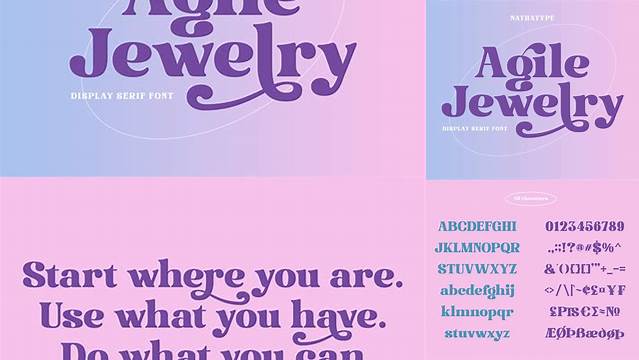
Agile Jewelry Free Font: A Complete Guide
Hey guys! Ever stumbled upon a font that just screams elegance and agility? Well, let’s dive into the world of agile jewelry free fonts. We're going to explore everything about them, from what makes them special to how you can use them in your next big project. Think of this as your ultimate guide to unlocking the potential of these stunning fonts. So, buckle up and let’s get started!
1. Understanding the Basics of Agile Jewelry Fonts
So, what exactly are agile jewelry fonts? These fonts are designed to evoke the same sense of sophistication and precision that you find in fine jewelry. They often feature sleek lines, delicate curves, and a sense of movement, making them perfect for projects that need a touch of class. Agile jewelry fonts aren't just about looking pretty; they're about conveying a message of elegance, quality, and attention to detail. Whether you're designing a logo for a high-end brand or creating invitations for a swanky event, understanding the basics of these fonts is crucial. They bridge the gap between typography and artistry, offering a unique way to express creativity. When you start to really understand these fonts, you'll find yourself seeing design possibilities everywhere. Imagine using one for a wedding invitation – the font itself becomes part of the celebration. Or, picture it gracing the cover of a luxury magazine, instantly signaling sophistication. The beauty of agile jewelry fonts lies in their versatility and their ability to elevate any design they touch.
2. The Characteristics of Agile Design in Fonts
What makes a font “agile”? Well, in the design world, agility refers to the font's ability to adapt and flow, much like a dancer or a gymnast. Fonts with an agile design often have a sense of movement, with strokes that curve and connect in unexpected ways. This agility can be achieved through various techniques, such as varying the thickness of the lines, adding subtle serifs, or incorporating calligraphic elements. The key is to create a font that feels dynamic and alive. This is crucial because agile jewelry fonts aren't just about being visually appealing; they're about conveying a sense of grace and flexibility. Think of it like this: a font that’s too rigid can feel cold and uninviting. But an agile jewelry font? It feels like it’s flowing across the page, drawing the reader in. These fonts often mimic the fluidity found in handwritten scripts or the delicate lines of jewelry design. And when you start to notice these characteristics, you’ll appreciate the craftsmanship that goes into creating them. The next time you see a font that seems to dance on the page, you'll know you're looking at agile design in action.
3. Exploring Free Agile Jewelry Font Options
4. The Appeal of Jewelry-Inspired Typography
Why jewelry? What’s the connection between shiny gems and letters on a page? Well, jewelry-inspired typography aims to capture the same sense of luxury, craftsmanship, and attention to detail that you find in a beautifully crafted piece of jewelry. Think about it: both jewelry and fonts can be intricate, delicate, and eye-catching. They both communicate a certain message or feeling. Jewelry-inspired fonts often feature thin lines, elegant curves, and a sense of sparkle, almost as if they were made of precious metals and gemstones. This connection isn't accidental. Designers often draw inspiration from the shapes, textures, and overall aesthetic of jewelry when creating these fonts. For instance, a font might mimic the flowing lines of a necklace or the sharp angles of a diamond. This results in typography that feels not just visually appealing, but also rich with meaning and emotion. The allure of jewelry-inspired typography lies in its ability to transform the mundane into the magnificent, turning words into wearable art.
5. How to Use Agile Jewelry Fonts in Branding
Branding is all about making a statement, and the right font can speak volumes. Agile jewelry fonts are fantastic for brands that want to project an image of elegance, sophistication, and exclusivity. Think luxury boutiques, high-end spas, or bespoke jewelry designers. These fonts can add a touch of class to logos, websites, and marketing materials, instantly elevating your brand’s image. But it's not just about aesthetics; it's about conveying the right message. An agile jewelry font can communicate that your brand is refined, detail-oriented, and committed to quality. When using these fonts in branding, consider the overall tone and style you want to convey. A delicate script font might be perfect for a wedding planner, while a bolder, more angular font could work well for a contemporary jewelry brand. The key is to choose a font that aligns with your brand’s personality and values. And don’t forget consistency! Using the same font across all your branding materials will create a cohesive and professional look. So, when it comes to branding, agile jewelry fonts can be your secret weapon for creating a lasting impression.
6. Designing Logos with Agile Free Fonts
Creating a logo? This is where the magic happens! A logo is the face of your brand, and the font you choose plays a massive role in shaping that identity. When you're designing logos, agile free fonts can be your best friends, bringing that touch of class and sophistication without costing a dime. The beauty of using an agile font in a logo is its versatility. It can be adapted to suit a range of styles, from minimalist and modern to ornate and traditional. When selecting an agile free font, think about the message you want your logo to convey. A flowing script font might be perfect for a beauty brand, while a geometric sans-serif could work wonders for a tech company looking to exude elegance. To create a memorable logo using agile free fonts, consider the overall aesthetic and how the font complements other design elements. Play around with different sizes, weights, and spacing to achieve the perfect balance. Remember, the goal is to create a logo that is not only visually appealing but also instantly recognizable and representative of your brand.
7. Website Design and Agile Jewelry Font Integration
Your website is your online storefront, and just like a physical store, the design needs to be inviting and reflect your brand’s personality. Incorporating agile jewelry fonts into your website design can instantly elevate the user experience, adding a touch of sophistication and elegance. But how do you do it effectively? The key is to use these fonts strategically. While they're stunning for headings, logos, and key phrases, you might want to avoid using them for large blocks of body text. An agile jewelry font, while beautiful, can sometimes be harder to read in large quantities. Instead, pair it with a cleaner, more legible font for your main content. Think of it as a conversation: your headings and key phrases make a statement in agile jewelry fonts, and your body text fills in the details in a clear, readable style. When integrating these fonts into your website, consider the overall aesthetic. Does your site have a minimalist design? An ornate script font could provide a striking contrast. Is it more traditional? A classic serif font with agile elements might be the perfect fit. Website design and agile jewelry font integration is all about balance and creating a cohesive visual experience.
8. Typography Pairings: Complementing Agile Styles
So, you’ve found the perfect agile jewelry font. Now what? The next step is to pair it with another font that complements its style. Typography pairings are crucial for creating a balanced and visually appealing design. Think of it as a harmonious duo: one font takes the lead, while the other provides support and contrast. When pairing an agile font, consider its personality. Is it delicate and flowing, or bold and geometric? A delicate script font might pair well with a clean sans-serif, while a bold agile font could benefit from a more understated serif. The goal is to create a visual hierarchy, where the agile jewelry font catches the eye and the supporting font provides clarity and readability. Experiment with different combinations to find what works best for your project. Websites like FontPair and Typewolf can be great resources for inspiration and guidance. The art of typography pairings is about creating a visual dialogue, and when you get it right, it can transform your design from good to wow.
9. Using Free Fonts for Invitations and Cards
Planning a special event? Whether it’s a wedding, a birthday, or a fancy gala, the right font can make your invitations and cards stand out. Free agile jewelry fonts are a fantastic choice for adding a touch of elegance and sophistication to your stationery. Imagine a delicate script font gracing a wedding invitation or a bold, geometric font making a statement on a party announcement. The possibilities are endless! When using free fonts for invitations and cards, think about the tone and style of the event. A formal occasion might call for a classic serif or script font, while a more casual gathering could benefit from a modern sans-serif with agile elements. Consider your audience, too. What fonts will resonate with them and create the desired impression? When designing invitations and cards with free agile jewelry fonts, pay attention to the details. The spacing between letters and lines, the size of the font, and the overall layout can all impact the final result. Remember, the goal is to create a design that is not only visually appealing but also easy to read. The right font can transform a simple invitation into a keepsake, and agile jewelry fonts offer the perfect blend of style and sophistication.
10. Agile Fonts in Digital Marketing Campaigns
In the fast-paced world of digital marketing, grabbing attention is key. Using agile fonts in your campaigns can help your visuals stand out and convey the right message to your audience. These fonts, with their elegant and dynamic designs, can add a touch of sophistication and professionalism to your marketing materials. Think about your target audience and the kind of message you want to send. An agile jewelry font can be particularly effective for luxury brands, fashion retailers, and companies in the beauty or lifestyle industries. However, agility isn’t just about aesthetics; it’s also about readability and adaptability. When incorporating agile fonts into digital marketing, ensure that the font is clear and legible across various devices and platforms. Pair your agile font with a complementary font for body text to maintain readability without sacrificing style. Always test your designs on different screens and consider the overall visual appeal to ensure that your message resonates with your audience.
11. The Impact of Font Choice on Readability
Readability, guys, this is super important. No matter how beautiful a font is, if your audience can't read it easily, it's not doing its job. The impact of font choice on readability cannot be overstated. While agile jewelry fonts can add a touch of elegance to your designs, it’s crucial to balance style with functionality. Factors like font size, spacing, and contrast play a significant role in how easily your text can be read. A font that looks stunning in a headline might become a headache in body text. When choosing fonts, think about the context in which they’ll be used. For instance, a clean sans-serif font is often the best choice for web content because it’s easy to read on screens. In contrast, a script or decorative agile jewelry font might be better suited for shorter text elements like headings or quotes. To ensure readability, pay attention to the kerning (the space between letters) and the leading (the space between lines). Adequate spacing can prevent your text from feeling cramped and make it easier for the eye to follow. Remember, readability is about respecting your audience’s time and attention. By choosing fonts that are both visually appealing and easy to read, you can create designs that are not only beautiful but also effective.
12. Licensing Considerations for Free Fonts
So, you've found the perfect agile free font? Awesome! But before you start using it everywhere, let’s talk about licensing. Understanding licensing considerations for free fonts is crucial to avoid any legal hiccups down the road. Just because a font is free doesn't mean it's free for any use. Most free agile fonts come with specific terms and conditions that outline what you can and cannot do with them. There are generally two main types of licenses: personal use and commercial use. Personal use licenses typically allow you to use the font for non-profit projects, such as school assignments or personal invitations. Commercial use licenses, on the other hand, allow you to use the font in projects that generate revenue, such as logos, websites, and marketing materials. However, even commercial use licenses can have restrictions. Some may require you to credit the font designer, while others may prohibit you from modifying the font or embedding it in certain types of software. Before incorporating a free agile font into your project, always check the license agreement. Look for a file called “License.txt” or “ReadMe.txt” in the font download, or visit the font designer’s website for more information. Ignoring licensing terms can lead to legal issues, so it’s always better to be safe than sorry.
13. Font Weight and Its Role in Agile Aesthetics
Font weight is a game-changer in typography! It’s not just about making text bolder or lighter; it's about adding depth, hierarchy, and visual interest to your designs. And when it comes to agile aesthetics, font weight plays a starring role. Think of font weight as the personality of your typeface. A light weight can convey elegance and delicacy, while a bold weight can project strength and confidence. In the context of agile jewelry fonts, font weight can enhance the sense of agility and fluidity. For instance, a thin, lightweight font might mimic the delicate lines of a piece of fine jewelry, while a slightly bolder weight can add emphasis and presence. When working with agile fonts, experiment with different weights to see how they impact the overall design. Consider using a lighter weight for headings to create a sophisticated and airy feel, and a slightly heavier weight for body text to ensure readability. Font weight also plays a crucial role in visual hierarchy. By using different weights, you can guide the reader’s eye and highlight the most important information. So, don't underestimate the power of font weight – it's a key ingredient in achieving a polished and agile aesthetic.
14. Kerning and Leading for Agile Free Fonts
Okay, let’s dive into some typography nitty-gritty: kerning and leading! These might sound like super technical terms, but trust me, they're essential for making your text look amazing, especially when you're working with agile free fonts. Kerning is the adjustment of the space between individual letters, while leading (pronounced “ledding”) is the vertical space between lines of text. Both kerning and leading have a huge impact on readability and visual appeal. Imagine a beautifully designed agile free font with wonky kerning – some letters are squished together, while others are miles apart. It's distracting, right? Proper kerning ensures that the letters flow smoothly and evenly, creating a harmonious visual rhythm. Leading is equally important. If the lines of text are too close together, the text can feel cramped and difficult to read. If they're too far apart, the text can look disjointed. The right leading gives your text room to breathe and enhances readability. When working with agile free fonts, pay close attention to kerning and leading. Many fonts have built-in kerning pairs, but you may need to make manual adjustments to achieve the perfect balance. Experiment with different leading values to find what works best for your specific font and layout. Mastering kerning and leading is like adding the final polish to a piece of jewelry – it's what makes your typography truly shine.
15. Color Psychology and Font Choice Synergy
Color psychology is a fascinating field, and it plays a big role in design. But did you know that color and font choices work together to create a certain mood or message? This is especially true when you're using something as specific as agile jewelry free fonts. Think about it: Colors evoke emotions and associations, and fonts do the same. When you combine them strategically, you can create a powerful synergy that enhances your design. For example, a delicate script font paired with soft pastel colors might evoke feelings of romance and elegance, making it perfect for wedding invitations. On the other hand, a bold, geometric font combined with vibrant, energetic colors might convey a sense of modernity and excitement, making it suitable for a tech startup’s branding. When thinking about color psychology and font choice synergy, consider your target audience and the message you want to convey. What emotions do you want to evoke? What associations do you want to create? The key is to choose colors and fonts that complement each other and work together to tell a cohesive story. This is where agile jewelry free fonts really shine; their inherent elegance can be amplified or contrasted with the right color palette to create a truly impactful design.
16. Best Practices for Using Fonts in Print Materials
Print materials have their own unique set of considerations when it comes to font usage. While digital design allows for flexibility, print requires attention to detail to ensure your fonts look their best on paper. When using fonts in print, especially elegant ones like agile jewelry free fonts, certain best practices can make a huge difference. One of the primary considerations is resolution. Print materials typically require a higher resolution than digital designs to ensure sharpness and clarity. This means choosing fonts that are well-designed and hold up at high resolutions. Avoid fonts that appear pixelated or blurry when printed. Another important factor is color. When selecting colors for your text, consider how they will appear on paper. Some colors may look different on screen than they do in print, so it's always a good idea to do a test print before finalizing your design. Font size is also critical in print. Text that looks legible on a screen might appear too small when printed, so be sure to choose a font size that is appropriate for your audience. Remember, legibility is key. Even the most beautiful agile jewelry free font won't be effective if it's difficult to read. Following these best practices will ensure your print materials look professional and polished.
17. How to Download and Install Free Fonts
Ready to get your hands on some awesome free fonts? Great! Downloading and installing fonts is a pretty straightforward process, but there are a few steps you'll want to follow to make sure everything goes smoothly. First, you'll need to find a reputable website to download your agile jewelry free font. Websites like Google Fonts, Font Squirrel, and DaFont are excellent resources. Once you've found the font you want, click the download button. The font will typically download as a ZIP file. After the download is complete, locate the ZIP file in your downloads folder and extract its contents. Inside the extracted folder, you'll find the font files, which usually have a .ttf (TrueType Font) or .otf (OpenType Font) extension. To install the font on Windows, right-click the font file and select “Install.” On macOS, double-click the font file and click the “Install Font” button in the Font Book application. That’s it! The font is now installed on your system and should be available for use in your design software. If you’re still having trouble seeing your newly installed agile jewelry free font in your design applications, try restarting the program. It’s a simple fix that often resolves the issue. Happy designing!
18. Common Mistakes to Avoid When Using Agile Fonts
Okay, let’s talk about some potential pitfalls. Agile fonts can be stunning, but they also come with their own set of challenges. Knowing the common mistakes to avoid when using agile fonts can save you from design disasters and ensure your projects shine. One of the biggest mistakes is overuse. Agile jewelry free fonts, with their elegant and often intricate designs, are best used sparingly. A headline or a logo? Perfect. Large blocks of body text? Not so much. Using an agile font for everything can overwhelm the reader and detract from readability. Another common mistake is poor pairing. An agile font paired with a similar style can create a visual clash. It’s often best to pair an agile font with a simpler, more neutral font to create contrast and balance. Also, be mindful of size and spacing. An agile jewelry free font might look beautiful in large sizes, but it can become illegible when scaled down. Always test your font choices in different sizes and ensure there's adequate spacing between letters and lines. Finally, don't forget about licensing. Using a font without the proper license can lead to legal trouble. Always double-check the terms of use before incorporating a free agile font into your commercial projects. Avoiding these common mistakes will help you harness the beauty of agile fonts effectively.
19. The Future Trends in Jewelry-Inspired Typography
The world of typography is always evolving, and jewelry-inspired fonts are no exception. Looking at the future trends in jewelry-inspired typography can give you a glimpse into what’s coming next in the design world. One exciting trend is the fusion of traditional and modern styles. We're seeing designers blending classic script fonts with contemporary sans-serifs, creating unique and versatile typefaces. This trend allows for a fresh take on elegance, combining the timeless appeal of traditional fonts with the clean lines of modern design. Another trend is the exploration of textures and finishes. Think fonts that mimic the shimmer of gemstones or the intricate details of metalwork. These textured fonts add depth and visual interest, creating a tactile experience for the viewer. We're also seeing a rise in variable fonts, which allow for greater flexibility and customization. Variable fonts enable designers to adjust font weights, widths, and other parameters, creating a truly bespoke look. In the future, agile jewelry free fonts are likely to become even more dynamic and expressive, pushing the boundaries of what’s possible in typography. Staying on top of these trends will help you create designs that are both current and captivating.
20. Creating a Mood Board for Font Selection
Okay, let's talk mood boards! If you're not using them yet, you're missing out. Creating a mood board for font selection is a fantastic way to get your creative juices flowing and ensure your font choices align with your overall design vision, especially when working with something as specific as agile jewelry free fonts. A mood board is essentially a visual collage of images, colors, textures, and typography that captures the essence of your project's aesthetic. It's a powerful tool for brainstorming and clarifying your design direction. When creating a mood board for font selection, start by gathering images that evoke the mood and style you want to achieve. If you're designing for a luxury brand, you might include images of high-end jewelry, elegant interiors, and sophisticated color palettes. Once you have a collection of inspiring visuals, start experimenting with different fonts. Try pairing various agile jewelry free fonts with complementary typefaces to see how they fit within your mood board's aesthetic. Pay attention to the overall feeling conveyed by each font combination. Does it feel harmonious? Does it capture the essence of your project? Creating a mood board is a great way to visualize your design and make informed font choices. It’s a must have before diving deep into agile jewelry free fonts for your project.
21. Case Studies: Successful Uses of Agile Fonts
Sometimes the best way to learn is by looking at examples. Case studies of successful uses of agile fonts can provide inspiration and insights into how these fonts can be effectively incorporated into various design projects. Think about some brands that exude elegance and sophistication. Many luxury fashion houses, high-end jewelry brands, and boutique hotels use agile fonts in their logos, websites, and marketing materials. By examining these examples, you can see how agile fonts contribute to their overall brand identity. For instance, a delicate script font might be used to convey a sense of romance and craftsmanship, while a bold geometric font could project a more modern and confident image. Look at the font pairings, color palettes, and overall design aesthetic in these case studies. What elements work well together? What creates a cohesive and impactful visual experience? Analyzing successful uses of agile fonts can help you develop your own design skills and make informed choices in your projects. It’s like having a cheat sheet for elegance!
22. The Psychology Behind Choosing the Right Font
Did you know that font choices can tap into our emotions and perceptions? It’s true! Understanding the psychology behind choosing the right font is essential for effective design, particularly when aiming for a specific mood with agile jewelry free fonts. Different fonts evoke different feelings. Serif fonts often convey tradition, authority, and trustworthiness, while sans-serif fonts tend to project modernity, clarity, and simplicity. Script fonts can evoke elegance, creativity, and intimacy, while display fonts can capture attention with their unique and often quirky designs. When selecting a font, consider the message you want to send and the emotional response you want to elicit. For instance, an agile jewelry free font with delicate, flowing lines might be perfect for a wedding invitation, as it evokes feelings of romance and grace. A bolder, more geometric agile font could be ideal for a luxury brand logo, projecting confidence and sophistication. By understanding the psychology of fonts, you can make strategic choices that resonate with your audience and enhance your design’s impact.
23. Agile Fonts for Social Media Graphics
Social media is all about visuals, and your font choices can make or break your graphics. Using agile fonts for social media graphics can add a touch of elegance and sophistication to your posts, helping them stand out in a crowded feed. But how do you use these fonts effectively in the fast-paced world of social media? First, consider your brand identity. What kind of message do you want to convey on social media? An agile jewelry free font can be perfect for brands that want to project a sense of luxury, style, or creativity. Use these fonts sparingly, guys! A headline or a call to action in an agile font can grab attention, but too much of it can overwhelm your followers. Pair your agile jewelry free font with a more readable font for body text to ensure clarity. Remember, social media graphics need to be legible on small screens, so choose font sizes and weights that are easy to read. Color and contrast are also crucial. Make sure your text stands out against the background by using contrasting colors. With the right font choices, your social media graphics can be both beautiful and effective.
24. Combining Agile Fonts with Different Design Styles
The beauty of agile fonts lies in their versatility. They can work wonders when combined with a variety of design styles, from minimalist to maximalist and everything in between. The key is to understand how to create a harmonious balance between the font and the overall design aesthetic. In a minimalist design, an agile jewelry free font can add a touch of elegance without cluttering the space. A delicate script font paired with clean lines and plenty of white space can create a sophisticated and understated look. In a more maximalist design, an agile font can provide a focal point amidst a rich tapestry of colors, patterns, and textures. A bold, geometric agile font can stand its ground and add a sense of structure to the design. When combining agile fonts with different design styles, consider the mood and message you want to convey. A classic script font might be perfect for a vintage-inspired design, while a modern agile font could be ideal for a contemporary project. Experiment with font pairings, colors, and layouts to find the perfect balance for your design. The possibilities are endless when you blend styles with agile jewelry free fonts.
25. The Role of White Space in Highlighting Agile Typography
White space, also known as negative space, is a crucial element in design. It’s the empty area around text and images that gives your design room to breathe and enhances its visual appeal. When it comes to highlighting agile typography, white space is your best friend. Agile jewelry free fonts, with their often intricate and delicate designs, need space to shine. Cluttering the design with too much text or imagery can overwhelm the font and diminish its impact. White space helps to isolate and accentuate the font, making it the focal point of the design. Think of it as a frame around a work of art – it draws attention to the piece and allows it to be fully appreciated. When using agile jewelry free fonts, consider the amount of white space in your design. A generous amount of white space can create a sense of elegance and sophistication, while a more constrained design might convey a feeling of energy and excitement. Experiment with different layouts and spacing to find the perfect balance for your project. Let the white space work its magic and make your typography truly sparkle.
26. Creating a Brand Voice with Font Selection
Your brand voice is how you communicate with the world. It’s the personality and tone that you convey through your messaging. Font selection plays a vital role in creating a strong brand voice, especially when you incorporate specific styles like agile jewelry free fonts. The font you choose can speak volumes about your brand’s values, personality, and target audience. For instance, a brand that wants to project a sense of trust and reliability might choose a classic serif font. A brand that wants to be seen as modern and innovative might opt for a clean sans-serif font. When it comes to agile jewelry free fonts, consider the specific nuances they bring. Are you aiming for elegance and sophistication? A delicate script font could be the perfect choice. Do you want to convey confidence and creativity? A bold, geometric agile font might be more appropriate. The key is to choose a font that aligns with your brand’s overall identity and resonates with your target audience. Consistency is also crucial. Using the same font or font family across all your branding materials will help to create a cohesive and recognizable brand voice. So, choose wisely, because your font speaks volumes about your brand.
27. How Agile Fonts Enhance Visual Hierarchy
Visual hierarchy is all about guiding the reader’s eye through your design, highlighting the most important information and creating a clear and logical flow. Agile fonts can be powerful tools for enhancing visual hierarchy, adding emphasis and creating focal points in your design. The key is to use agile fonts strategically, guys. Think of them as the stars of the show – they should command attention but not overshadow the supporting cast. One way to use agile fonts to enhance visual hierarchy is to reserve them for headings and subheadings. An agile jewelry free font used in a headline can instantly grab the reader’s attention and signal the topic of the section. Using a different font for body text ensures readability and creates a clear contrast between headings and content. Font size and weight also play a crucial role in visual hierarchy. A larger, bolder agile font will naturally draw the eye more than a smaller, lighter font. By varying the size and weight of your fonts, you can create a clear visual hierarchy that guides the reader through your design. Remember, visual hierarchy is about making information accessible and engaging. By using agile fonts thoughtfully, you can create designs that are both beautiful and effective.
28. Using Agile Free Fonts in Print vs. Digital Media
Print and digital media each have their own set of considerations when it comes to font usage. While agile free fonts can be effective in both mediums, there are some key differences to keep in mind. In print, resolution is crucial. Choose agile jewelry free fonts that are well-designed and hold up at high resolutions to avoid pixelation or blurring. Font size is also important. A font that looks legible on a screen might appear too small when printed, so be sure to test your font choices in different sizes. Digital media offers more flexibility in terms of font selection, but readability is still paramount. While an agile font might look stunning in a headline, it might not be the best choice for body text. Opt for a cleaner, more legible font for your main content. Screen resolution can also impact how fonts appear. Some fonts may look different on different devices or browsers, so it’s a good idea to test your font choices on various screens. When using agile free fonts in digital media, consider web-safe fonts, which are commonly available and render consistently across different platforms. Whether you're designing for print or digital media, the key is to choose fonts that are both visually appealing and easy to read.
29. The Influence of Cultural Trends on Font Design
Cultural trends are like a constant whisper in the design world, shaping the aesthetics and influencing the fonts we see and use. The influence of cultural trends on font design is significant, particularly when it comes to specific styles like agile jewelry free fonts. Fonts, like fashion or music, often reflect the values, aesthetics, and spirit of a particular era. For instance, the Art Deco movement of the 1920s gave rise to geometric sans-serif fonts that exuded elegance and modernity. Today, we see cultural trends like minimalism, sustainability, and inclusivity influencing font design. Clean, simple fonts with a focus on readability are popular, reflecting a desire for clarity and functionality. There's also a growing appreciation for handcrafted and artisanal fonts, reflecting a trend towards authenticity and individuality. When it comes to agile jewelry free fonts, cultural trends can influence the specific styles and aesthetics that are in vogue. For example, a resurgence of vintage and retro styles might lead to a renewed interest in classic script fonts. Staying attuned to cultural trends can help you make font choices that are not only visually appealing but also culturally relevant. So keep your eyes and ears open, guys, because culture is always talking!
30. Resources for Staying Updated on Font Trends
Staying in the know about font trends is a smart move for any designer. The world of typography is always evolving, and knowing what’s new and noteworthy can help you create designs that are fresh, current, and impactful. So, what are the best resources for staying updated on font trends? Let's dive in! Online typography blogs and websites are goldmines of information. Sites like Typewolf, I Love Typography, and Fonts in Use showcase current font trends, discuss typographic best practices, and highlight inspiring design projects. Social media platforms, such as Pinterest, Instagram, and Behance, are fantastic for visual inspiration. Follow designers, type foundries, and design studios to see how they're using agile jewelry free fonts and other typefaces. Design conferences and workshops are valuable opportunities to learn from industry experts and network with fellow designers. Attending these events can give you insights into emerging trends and help you develop your typographic skills. Font foundries themselves are also great resources. Many foundries have newsletters or blogs that showcase their latest releases and discuss current trends in typography. By tapping into these resources, you can stay ahead of the curve and ensure your font choices are always on point.